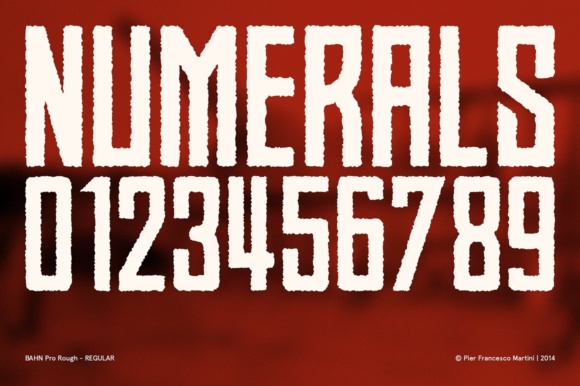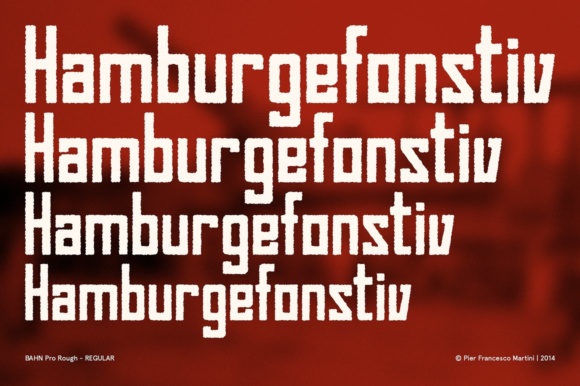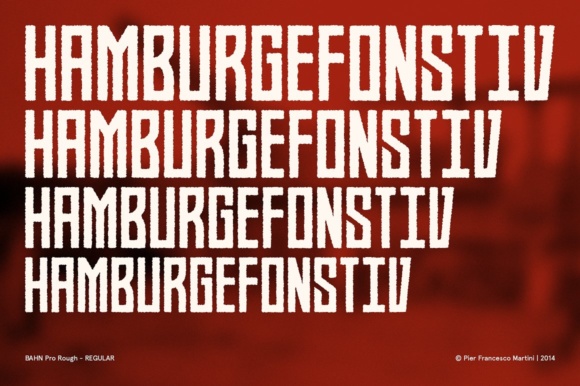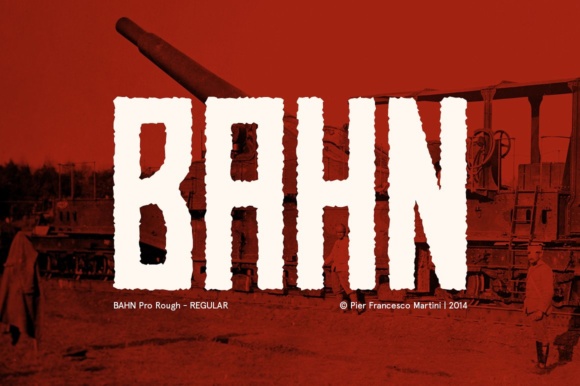
Bahn Font: Elevate Your Designs with a Rugged yet Refined Display Font
In the world of typography, a font can make or break a design. For designers and crafters looking to add a touch of ruggedness and severity to their projects, Bahn Font is an excellent choice. This stunning display font is designed to give your headlines, displays, and more an appealing feel that’s hard to ignore. With its rough and gritty texture, Bahn Font can amplify any project with a rugged theme, adding a level of sophistication and edge that’s sure to captivate your audience.
The Characteristics of Bahn Font
Bahn Font boasts a unique character set that sets it apart from other display fonts. Its rough and gritty texture gives it a worn, distressed look that’s perfect for designs that require a rugged, industrial feel. The font’s severity is balanced by its refined lines and smooth curves, making it an excellent choice for headlines, titles, and other display text. Whether you’re working on a branding project, a website design, or a craft project, Bahn Font is sure to add a touch of personality and flair.
Key Features of Bahn Font
- Rugged texture: Bahn Font’s rough and gritty texture gives it a unique, distressed look that’s perfect for rugged-themed designs.
- Severity with sophistication: The font’s severity is balanced by its refined lines and smooth curves, making it an excellent choice for headlines and display text.
- Display font: Bahn Font is designed specifically for display text, making it perfect for headlines, titles, and other prominent text elements.
- Versatile: Bahn Font can be used in a variety of design projects, from branding and website design to crafting and DIY projects.
Using Bahn Font in Your Designs
Bahn Font is an incredibly versatile font that can be used in a wide range of design projects. Here are a few ideas to get you started:
- Branding: Use Bahn Font to create bold, eye-catching logos and branding materials that make a statement.
- Website design: Add a touch of rugged sophistication to your website design with Bahn Font’s unique texture and refined lines.
- Crafting and DIY: Bahn Font is perfect for crafters and DIY enthusiasts looking to add a personal touch to their projects.
- Headlines and titles: Use Bahn Font to create bold, attention-grabbing headlines and titles that draw your audience in.
Tips for Working with Bahn Font
To get the most out of Bahn Font, here are a few tips to keep in mind:
- Use it sparingly: Bahn Font is a display font, so use it sparingly to avoid overwhelming your design.
- Experiment with colors: Bahn Font looks great in a variety of colors, so don’t be afraid to experiment and find the perfect hue for your design.
- Pair it with other fonts: Bahn Font pairs well with a variety of other fonts, so try pairing it with a clean sans-serif font for added contrast.
Bahn Font is a stunning display font that’s perfect for designers and crafters looking to add a touch of rugged sophistication to their projects. With its unique texture and refined lines, Bahn Font is sure to elevate your designs and make them stand out from the crowd. Whether you’re working on a branding project, a website design, or a craft project, Bahn Font is an excellent choice. So why wait? Download Bahn Font today and start creating designs that make a statement!